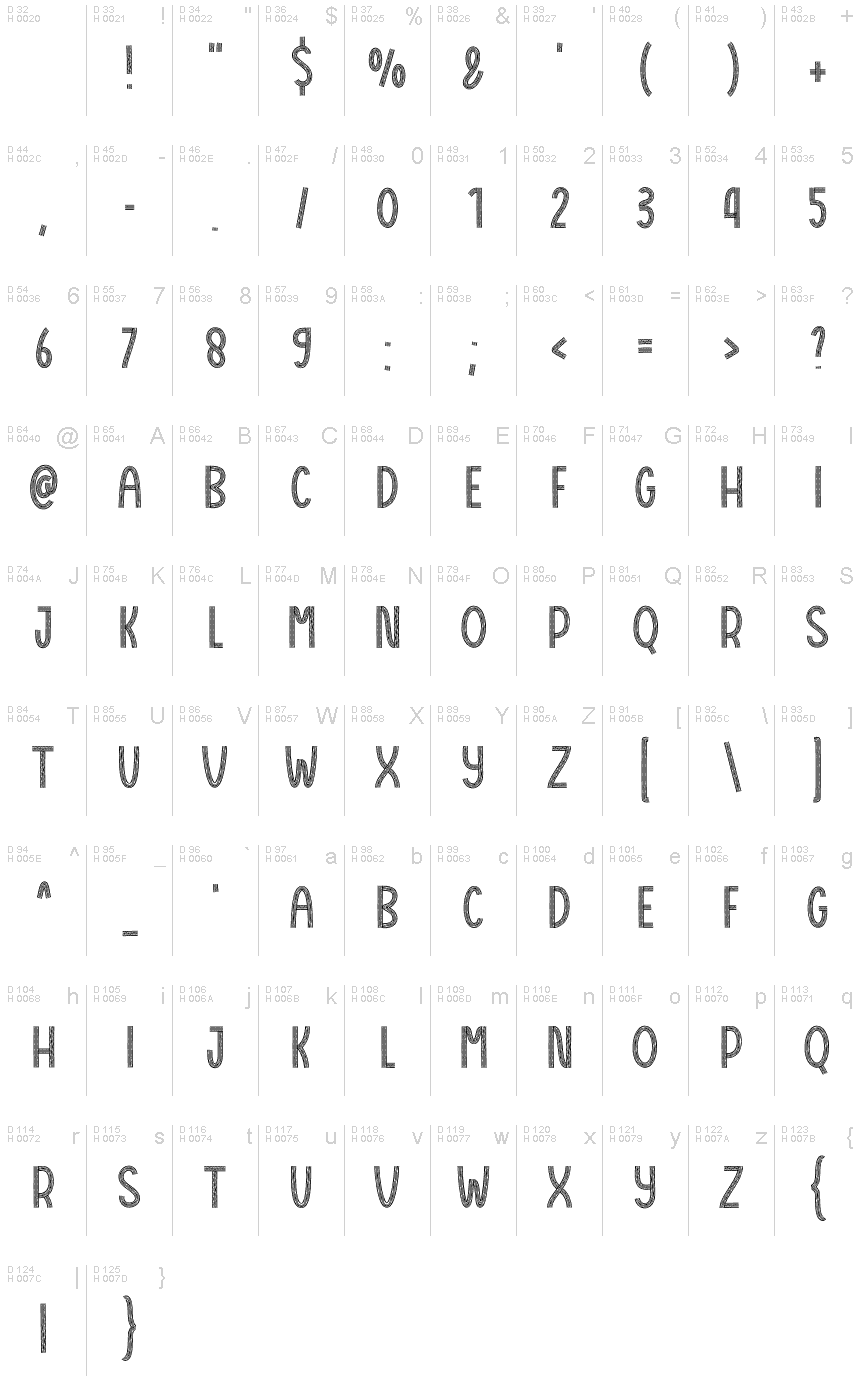
Christmas And Candy
Christmas And Candy, designed by Scratchones, is a festive display font that encapsulates the joy of the holiday season with its decorative and candy-inspired aesthetic. Its semi-light weight and condensed width evoke the whimsical charm of Christmas confections, making it an ideal choice for a wide range of creative projects.
From seasonal greetings and holiday packaging to event invitations and themed advertising campaigns, Christmas And Candy adds a touch of sweetness to any design. Its unique blend of playful swirls and sugary contours ensures that your message stands out with warmth and cheer. Whether crafting a winter wonderland or promoting a festive sale, this font infuses your work with the spirit of yuletide celebration. Embrace the enchantment of Christmas And Candy in your next project and watch your designs come alive with merry sophistication.